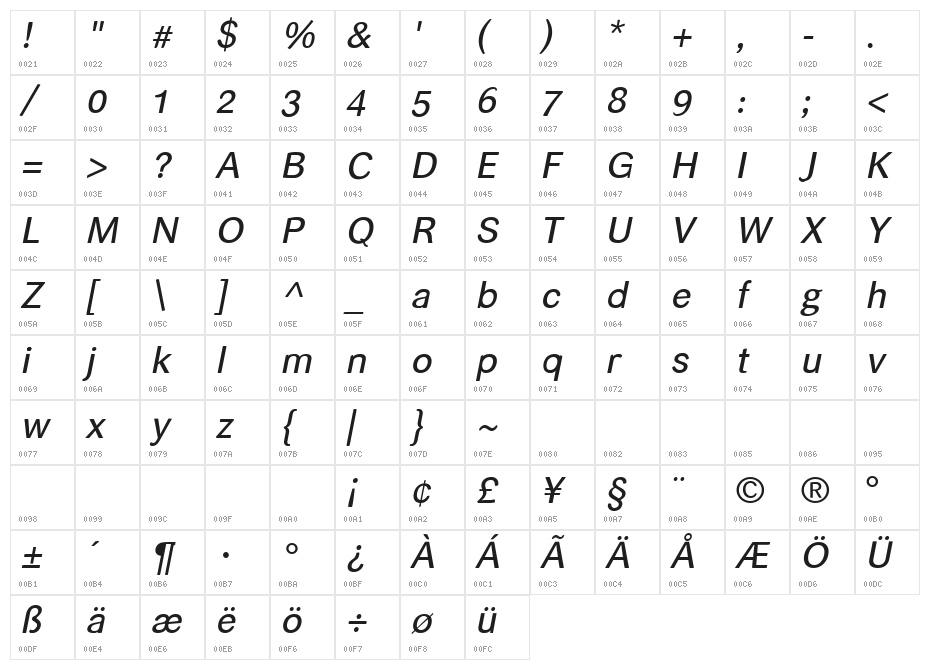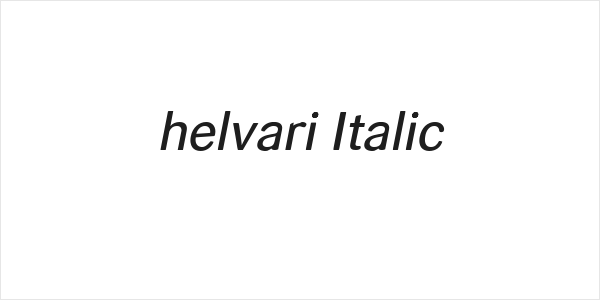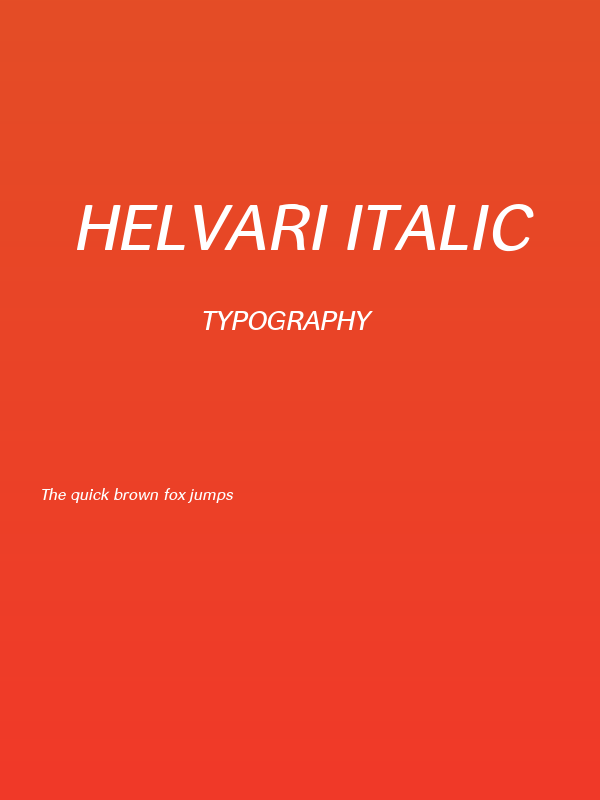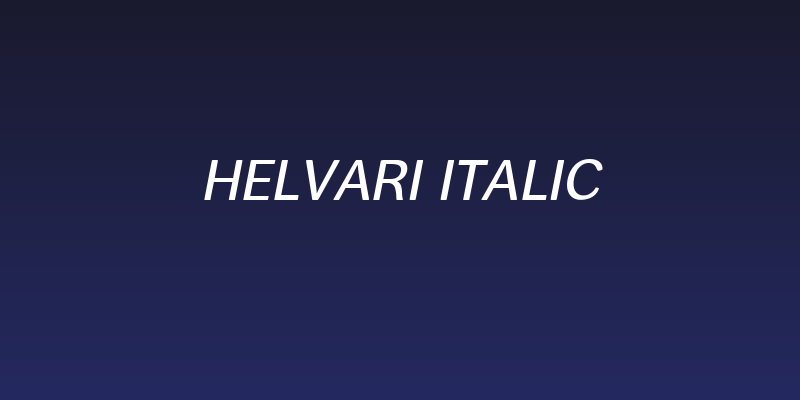
helvari Italic Font
helvari Italic Description
This font features a clean and modern sans-serif design with a distinct italic slant, giving it a dynamic and forward-leaning appearance. The characters are well-proportioned, with smooth curves and a consistent stroke width that enhances readability. The uppercase letters are bold and confident, while the lowercase letters maintain a friendly and approachable feel. The numerals are clear and easy to distinguish, making them suitable for both text and numerical data. Special characters are well-integrated, ensuring versatility in various design contexts.
| Proposed Projects | Ideal for branding, advertising, digital content, and editorial design where a modern and dynamic look is desired. |